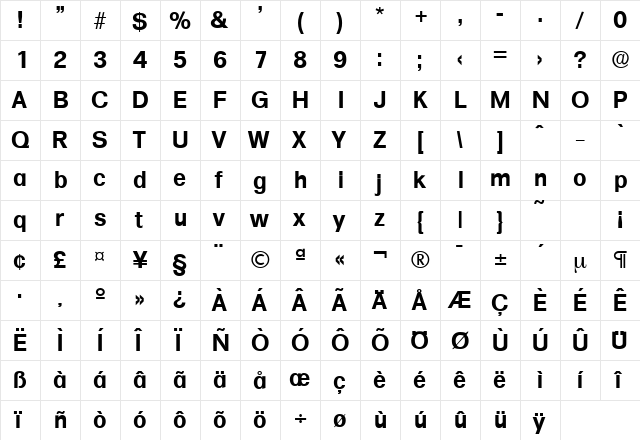
Formula-Serial Bold
Design Context for Formula-Serial Typeface
Formula-Serial is a composed and adaptable typeface that performs quietly and consistently across a wide range of design contexts. Its bold stroke weight gives it real presence on the page.